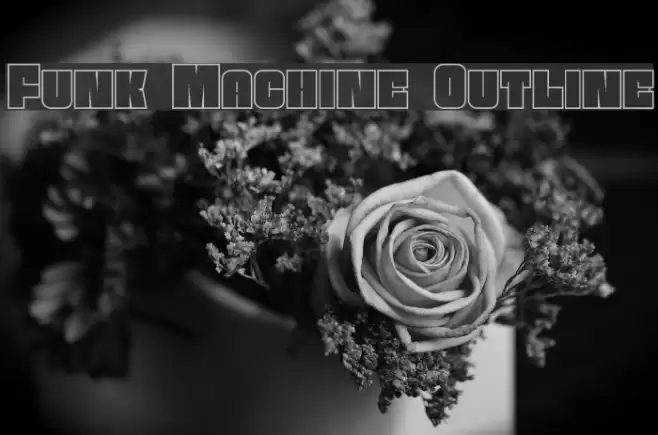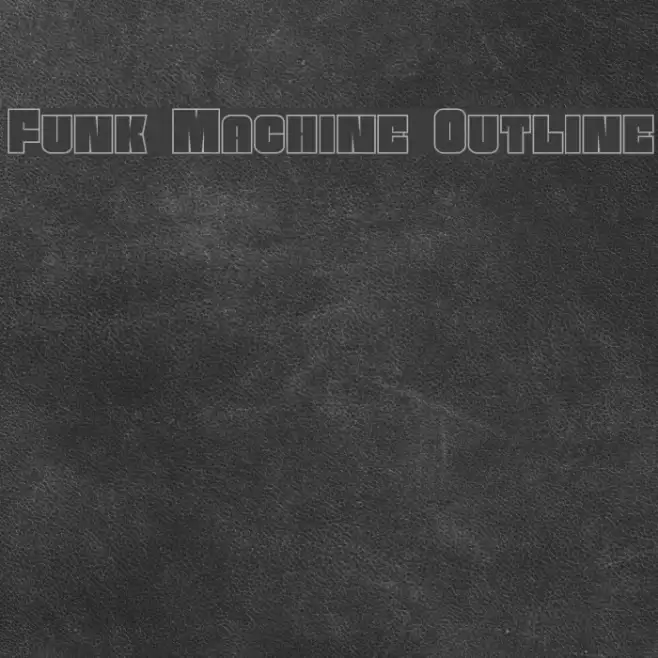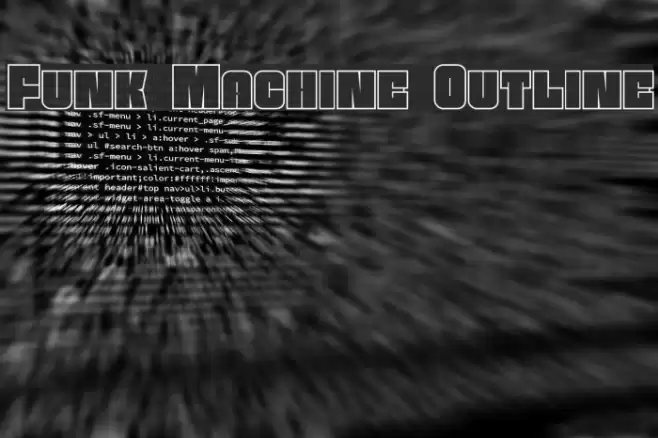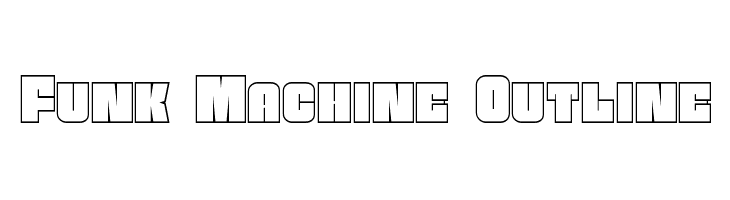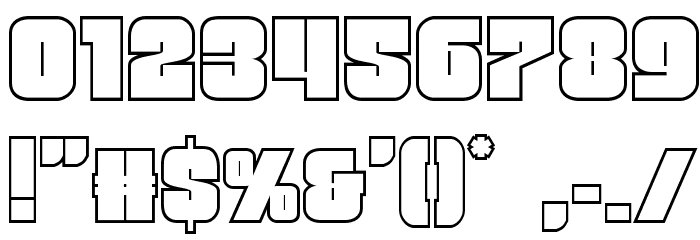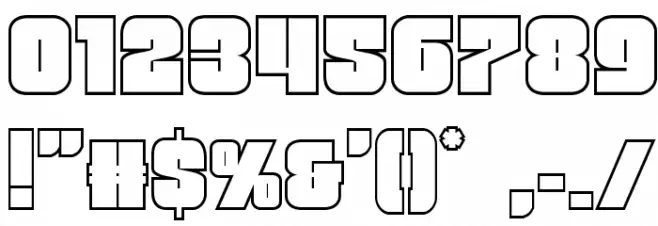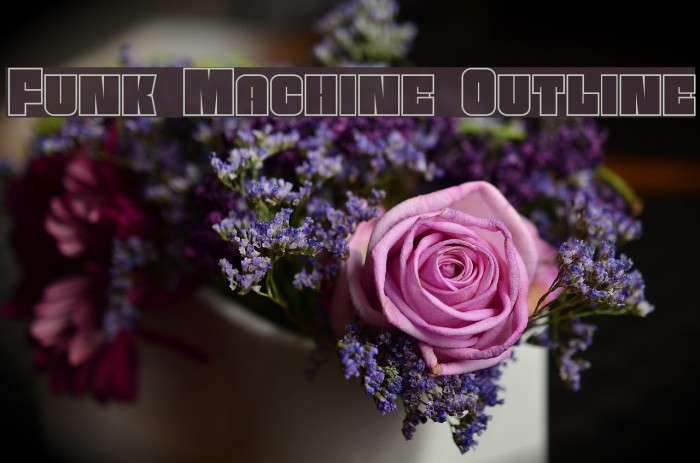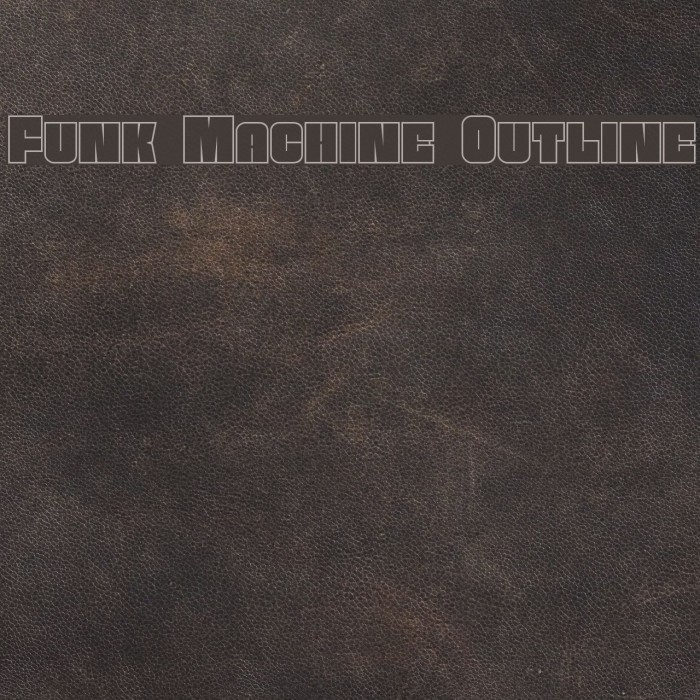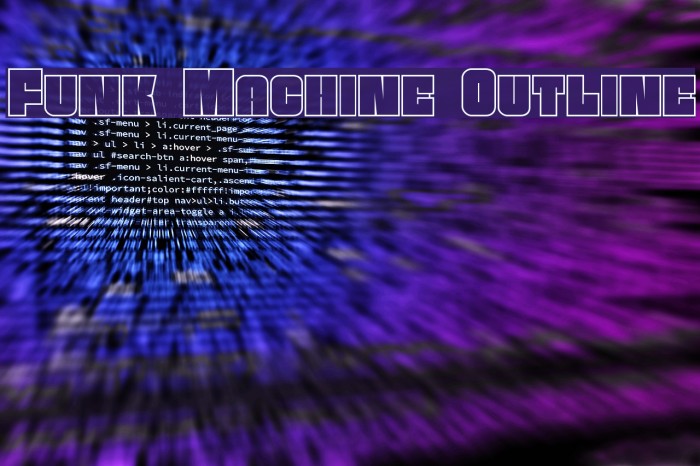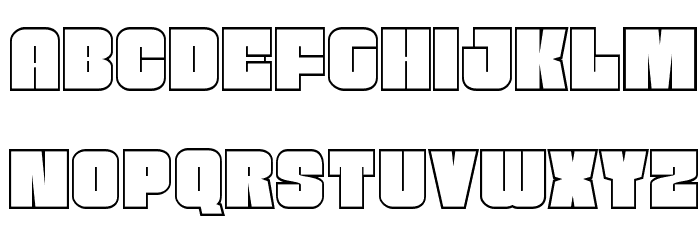
Funk Machine Outline Font
Funk Machine Outline Description
This font features a bold, geometric outline style that emphasizes strong, angular shapes. Each character is constructed with thick lines that form a distinct, blocky appearance, giving it a robust and industrial feel. The uppercase and lowercase letters maintain a consistent width, creating a uniform and cohesive look. The numbers and special characters follow the same design principles, ensuring a seamless integration across all glyphs. The font's outline nature provides a unique opportunity for creative color fills or layering effects, making it versatile for various design applications.
A bold, geometric outline font with a strong, industrial aesthetic from Fancy fonts.
- Proposed Projects: Ideal for poster designs, album covers, branding projects, and any creative work that requires a bold, standout typeface.